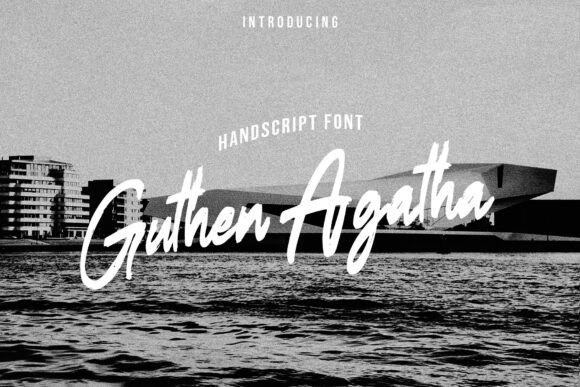
The Perfect Blend of Style and Personality
As designers, we’ve all been there – staring at a blank page, trying to conjure up the perfect combination of words and visuals to capture our audience’s attention. It’s that moment of creative frustration that often sparks the most innovative ideas. And sometimes, all it takes is the right font to bring our vision to life.
Enter Guthen Agatha Font, a stylish handscript font that embodies the perfect blend of bold strokes and effortless elegance. Designed to mimic authentic signature writing, this font is a game-changer for designers looking to add a dynamic, modern edge to their work. From branding and posters to apparel and creative headlines, Guthen Agatha Font is the ultimate tool for making a statement.
With its energetic flow and slightly rough texture, Guthen Agatha Font brings a strong personality to any design project, making it a valuable addition to any designer’s toolkit. Whether you’re a seasoned pro or just starting out, this font is sure to inspire your creativity and help you create something truly unique.
Guthen Agatha Font Key Features
- Font Family: Guthen Agatha
- Unique Characteristics: Elegant, Modern Script Font with Distinctive Flourishes and Whimsical Touches
Guthen Agatha Font Review
First off, I want to say that Guthen Agatha Font has some great qualities that make it a solid choice for designers. ✨ The font’s elegant and refined look is perfect for creating a sophisticated and high-end feel in your designs. It’s especially well-suited for use in luxury branding, advertising, and editorial projects.
Here are some of the things I like about Guthen Agatha Font: ✨
- Beautifully crafted letterforms with a unique, hand-painted feel
- Excellent legibility, making it easy to read at a variety of sizes
- Highly customizable with a range of font weights and styles
- Works well in both digital and print applications
However, I do have a few concerns about Guthen Agatha Font. ⚠️
- The font may be too ornate for some designs, which could make it difficult to read in certain situations
Overall, I think Guthen Agatha Font is a solid choice for designers who want a high-end, sophisticated font for their projects. While it may have a few limitations, its unique look and excellent legibility make it a great option for a variety of design applications.
The Guthen Agatha Font is ideal for:
- Brand logos and marketing materials
- Typographic posters and prints
For the best results, use the Guthen Agatha Font in conjunction with high-quality images and a clear, concise message.
Alternative Fonts to Guthen Agatha Font
Playfair Display is an elegant and luxurious serif font, perfect for high-end designs, luxury brands, and formal invitations. It features intricate details and flourishes, making it a great choice for creating a sophisticated atmosphere.
Compared to Guthen Agatha Font, Playfair Display is more ornate and luxurious, while Guthen Agatha Font has a more vintage and distressed feel. Playfair Display is ideal for projects that require a touch of sophistication and elegance, whereas Guthen Agatha Font is better suited for designs with a vintage or retro vibe.
Pacifico is a beautiful and elegant script font, perfect for designs that require a touch of sophistication and elegance. It features a flowing and cursive style, making it ideal for creating a warm and inviting atmosphere.
Compared to Guthen Agatha Font, Pacifico is more cursive and flowing, while Guthen Agatha Font has a more vintage and distressed feel. Pacifico is ideal for projects that require a touch of elegance and sophistication, whereas Guthen Agatha Font is better suited for designs with a vintage or retro vibe.